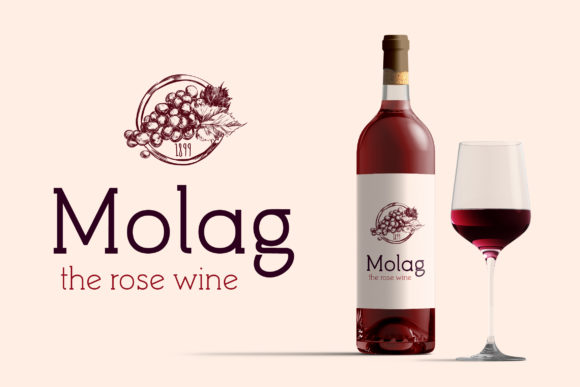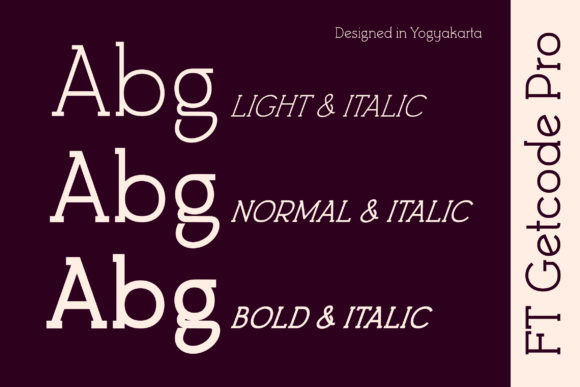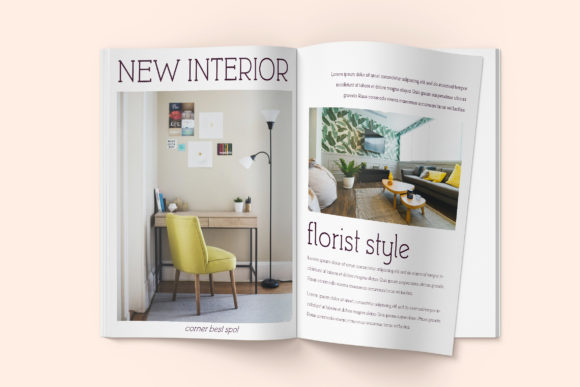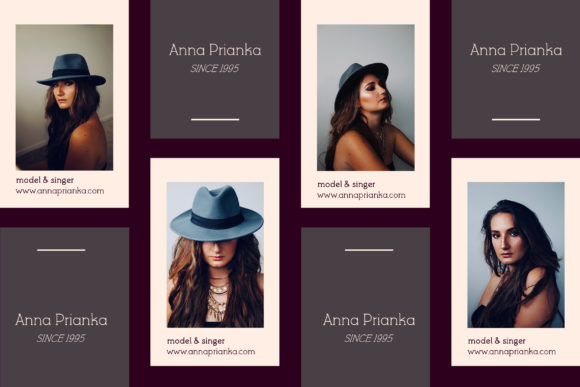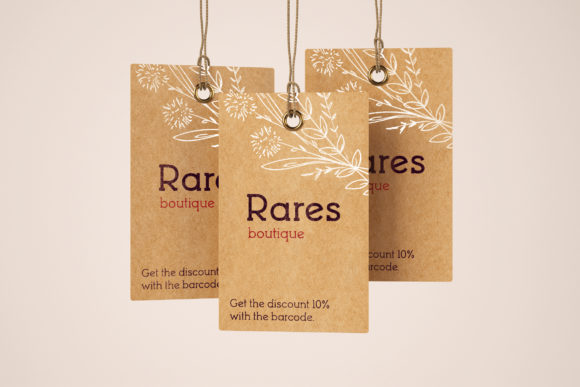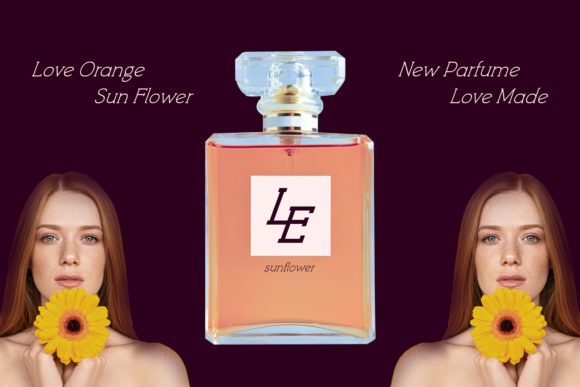
Introducing FT Getcode Pro Font: Elevate Your Designs with Elegance and Sophistication
Are you a designer or crafter looking for a font that exudes professionalism and style? Look no further than FT Getcode Pro Font, a simple yet elegant serif font family that is perfect for a wide range of design applications. In this article, we’ll take a closer look at the features and benefits of FT Getcode Pro, and explore how it can elevate your designs to the next level.
A Beautiful and Professional Typeface
FT Getcode Pro Font is a stunning serif font family that boasts a clean and neat design. Its classic style makes it an excellent choice for a variety of design projects, from posters and headlines to block letters, subheadings, logo designs, and branding. The font’s professional look and feel make it perfect for designers and crafters who want to create high-quality designs that stand out from the crowd.
Key Features of FT Getcode Pro Font
- Simple and Elegant Design: FT Getcode Pro features a simple yet elegant design that makes it perfect for a wide range of design applications.
- Serif Font Family: The font’s serif style adds a touch of sophistication and professionalism to any design.
- Clean and Neat: The font’s clean and neat design makes it easy to read and understand, even at small sizes.
- Highly Versatile: FT Getcode Pro is suitable for a wide range of design projects, from posters and headlines to logo designs and branding.
Use Cases for FT Getcode Pro Font
FT Getcode Pro Font is a highly versatile font that can be used in a variety of design applications. Here are some examples of how you can use this beautiful font:
- Posters and Flyers: Create eye-catching posters and flyers with FT Getcode Pro’s bold and elegant design.
- Headlines and Subheadings: Use FT Getcode Pro to create professional-looking headlines and subheadings for your website, blog, or marketing materials.
- Logo Designs: Create stunning logos with FT Getcode Pro’s clean and elegant design.
- Branding: Use FT Getcode Pro to create a consistent brand identity across all your marketing materials.
- Block Letters: Create beautiful block letters with FT Getcode Pro’s serif style.
Benefits of Using FT Getcode Pro Font
FT Getcode Pro Font offers a range of benefits for designers and crafters, including:
- Professional Look and Feel: FT Getcode Pro’s elegant design gives your designs a professional look and feel.
- Ease of Use: The font is easy to read and understand, even at small sizes.
- Highly Versatile: FT Getcode Pro can be used in a wide range of design applications.
- Unique and Creative: The font’s elegant design helps you to create unique and creative designs that stand out from the crowd.
In conclusion, FT Getcode Pro Font is a beautiful and professional serif font family that is perfect for designers and crafters looking to elevate their designs. Its simple yet elegant design makes it highly versatile and suitable for a wide range of design applications. With its professional look and feel, ease of use, and highly versatile design, FT Getcode Pro is an excellent choice for anyone looking to create high-quality designs.